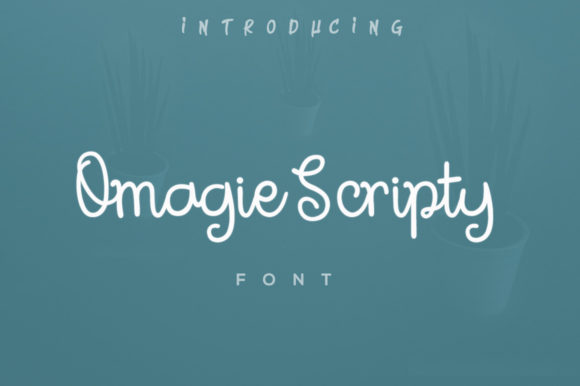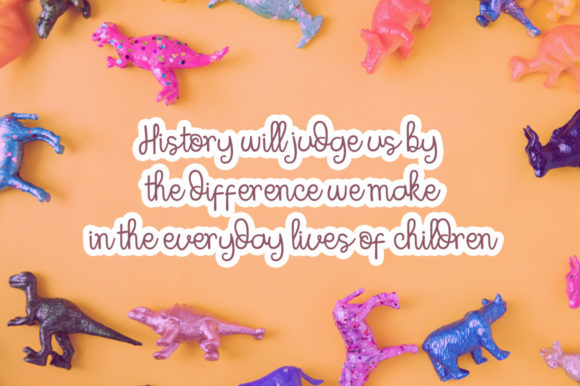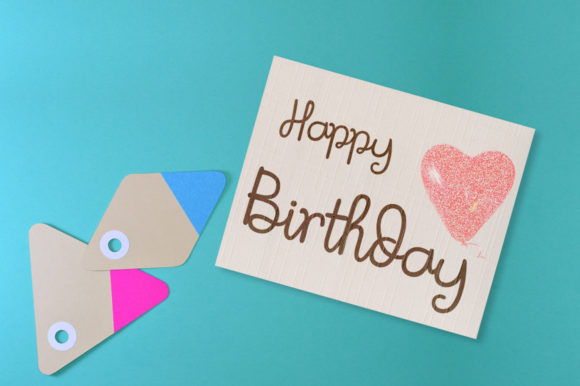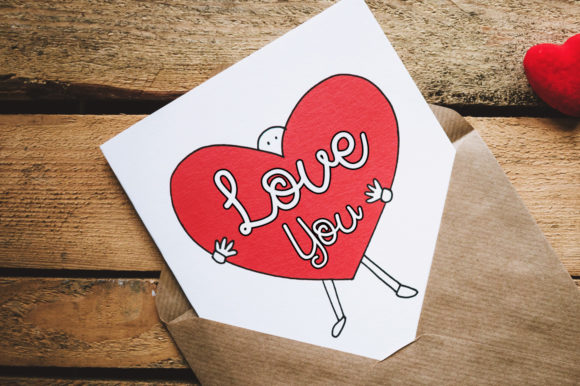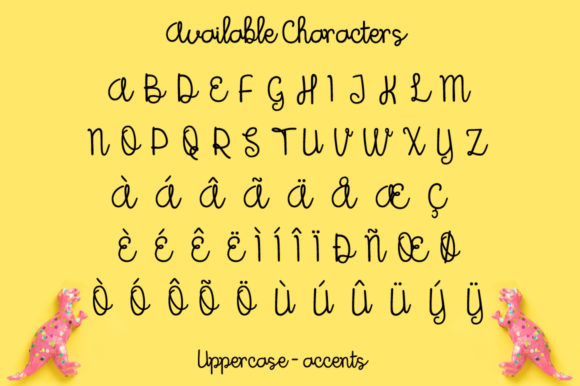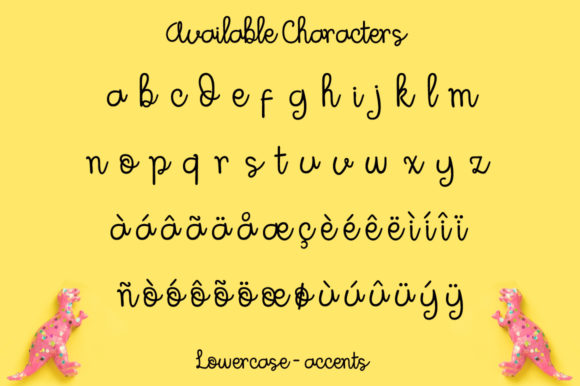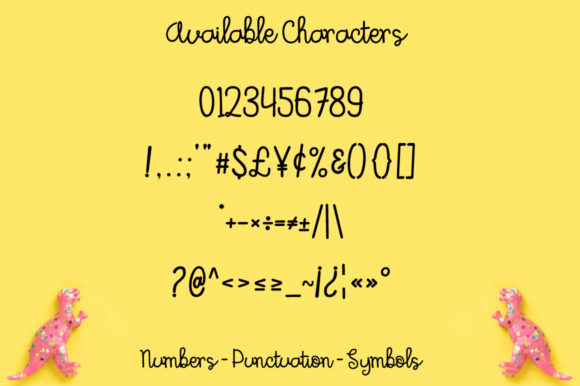
Omagie Scripty Font
About Omagie Scripty Font
Omagie Scripty is a gorgeous script font that features smooth curves. Whether it’s for web, print, moving images or anything else – Omagie Scripty will look spectacular.